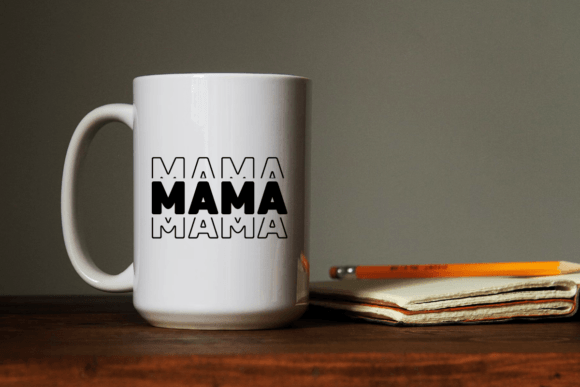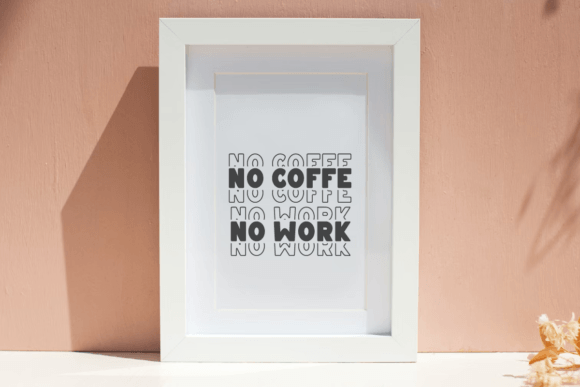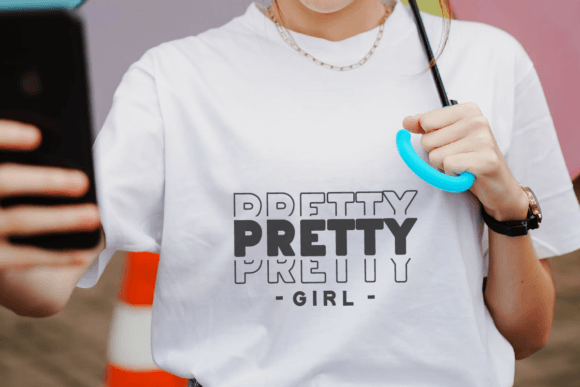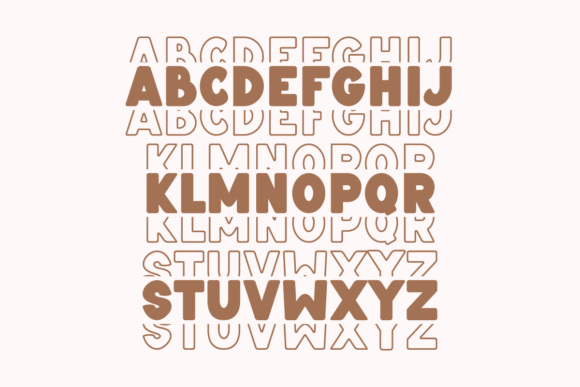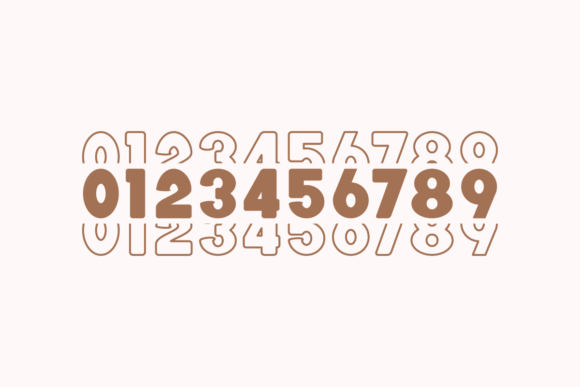
Stickers Font
Stickers is a bold, stacked display font. The perfect font for craft needs such as t-shirts, mugs, DIY, stickers, tote bags, wall art, decals, apparel, labels, titles and other creative craft needs.